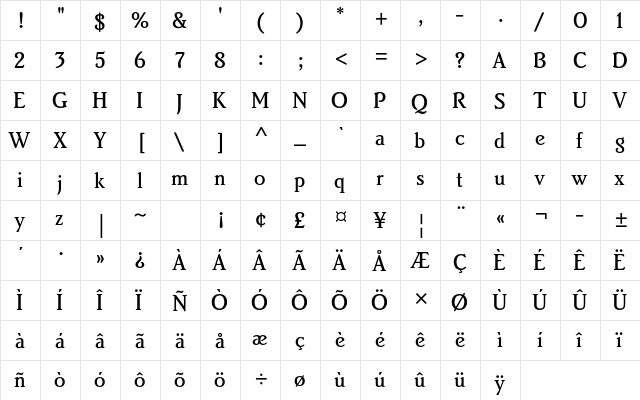
Brighton Std Medium
| Designer | Alan Bright |
Design Context for Brighton Std Typeface
Brighton Std is a composed and adaptable typeface that performs quietly and consistently across a wide range of design contexts.